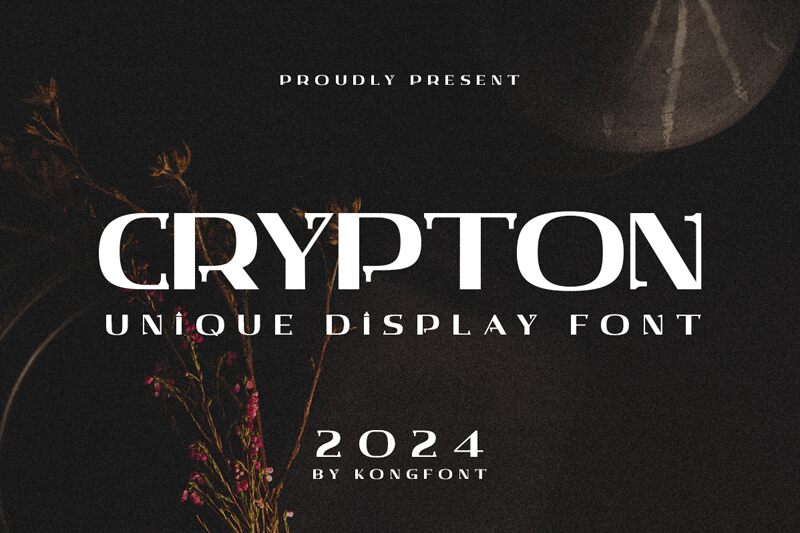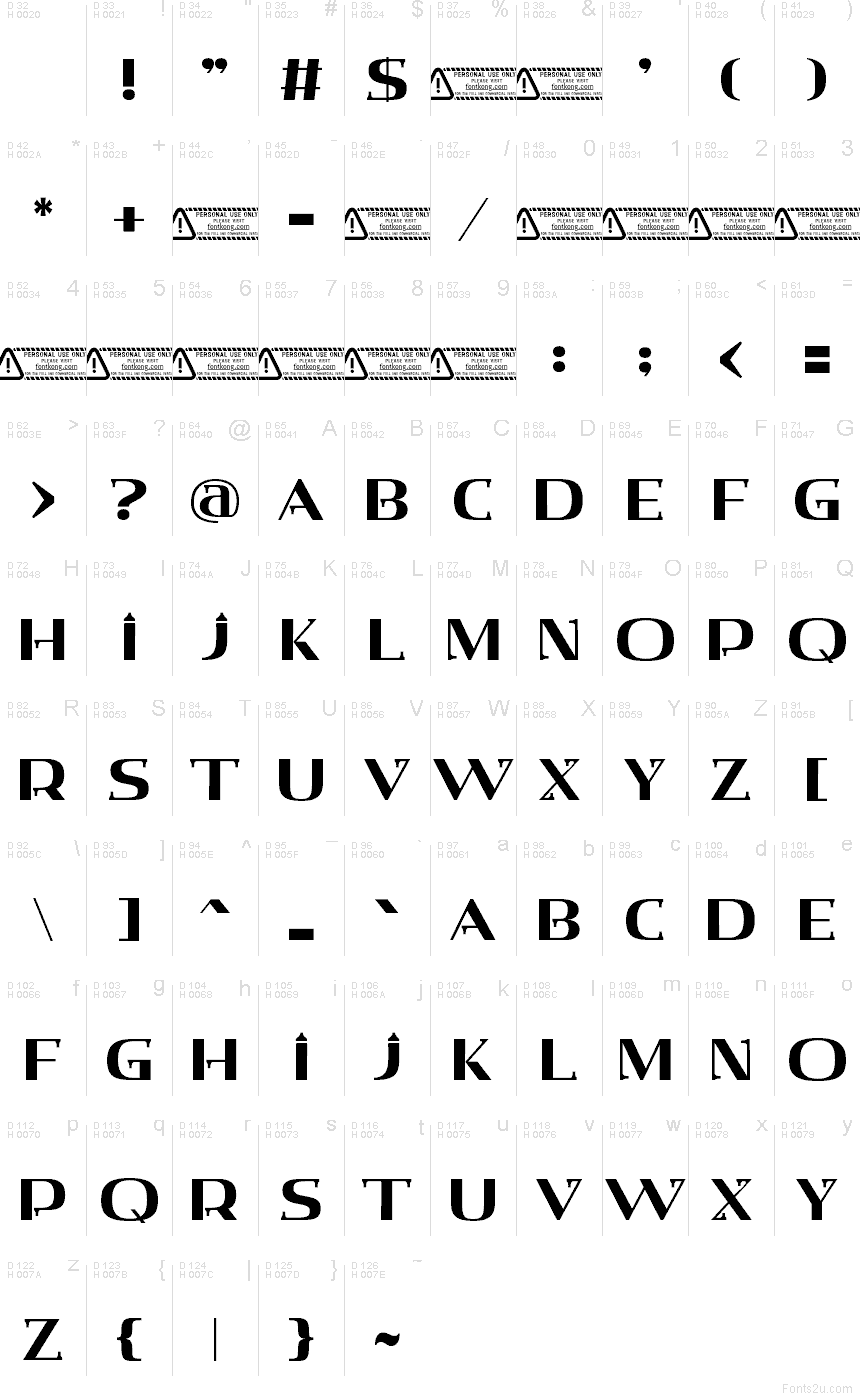
Crypton font by Kong Font is a free decorative serif typeface with a bold, cinematic presence. Wide, blocky letterforms meet razor-sharp wedges and sculpted curves, giving it a sleek, futuristic edge while still feeling grounded and readable at larger sizes. The dense black shapes create a solid, almost architectural rhythm, so every word lands with weight and intention.
Using Crypton, headlines snap into focus on movie posters, sci-fi book covers, gaming logos, tech branding, event titles, bold packaging, and dramatic social media graphics. This free font shines when you give it room to breathe—set it large and tight for maximum impact. For supporting text, pair Crypton with a clean geometric sans in a lighter weight to keep layouts sharp and balanced.